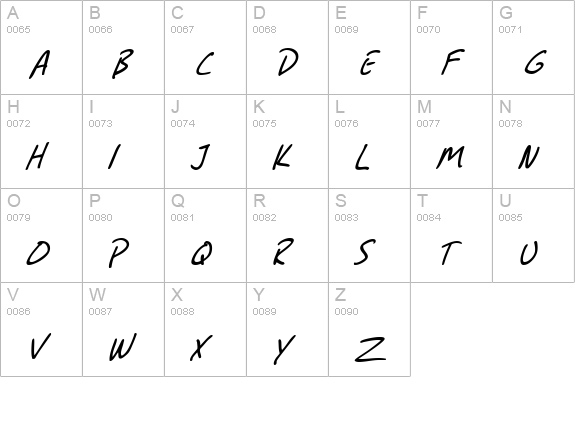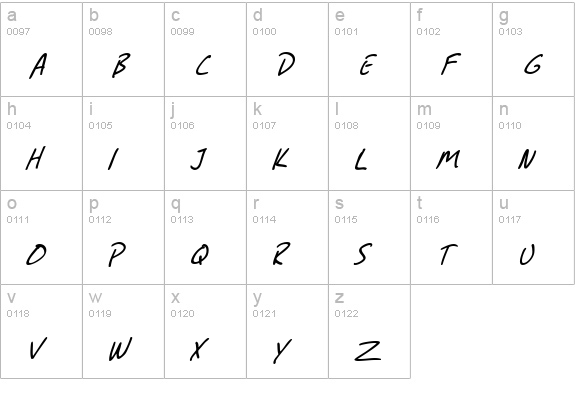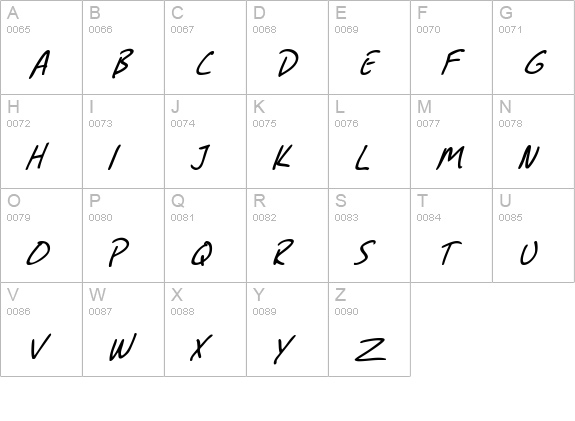
SF Grunge Sans SC Italic Font Details
SF Grunge Sans SC Italic is a distinctive, italic variant in the SF typeface family \xE2\x80\x94 well suited to design and typography projects.
SF Grunge Sans SC Italic is a rebellious and edgy font that breaks away from the norms of traditional typography. Its unique design combines the rawness of grunge with the sleekness of a sans serif typeface, resulting in a striking and unconventional style. The italicized slant adds an extra touch of dynamism and energy to the text, giving it a sense of movement and attitude. This font is perfect for projects that require a bold and gritty aesthetic, such as album covers, movie posters, or urban-themed designs. It adds a sense of urban decay and street art to any visual composition, making it a go-to choice for designers looking to make a statement. What sets SF Grunge Sans SC Italic apart is that it is not only visually captivating, but also freely available to download at FontsMarket.com. This means that you can add this unique font to your collection without any financial barriers. Whether you're a professional designer or just someone looking to experiment with typography, SF Grunge Sans SC Italic allows you to unleash your creativity without any restrictions. With its freely available download, SF Grunge Sans SC Italic offers accessibility and inclusivity to designers of all backgrounds, regardless of their budget. It empowers creatives to express themselves without limitations, encouraging innovation and pushing the boundaries of design. So, if you're ready to embrace the unconventional, the free SF Grunge Sans SC Italic font is here to help you make a bold statement. Download it today at FontsMarket.com and let your creativity run wild.